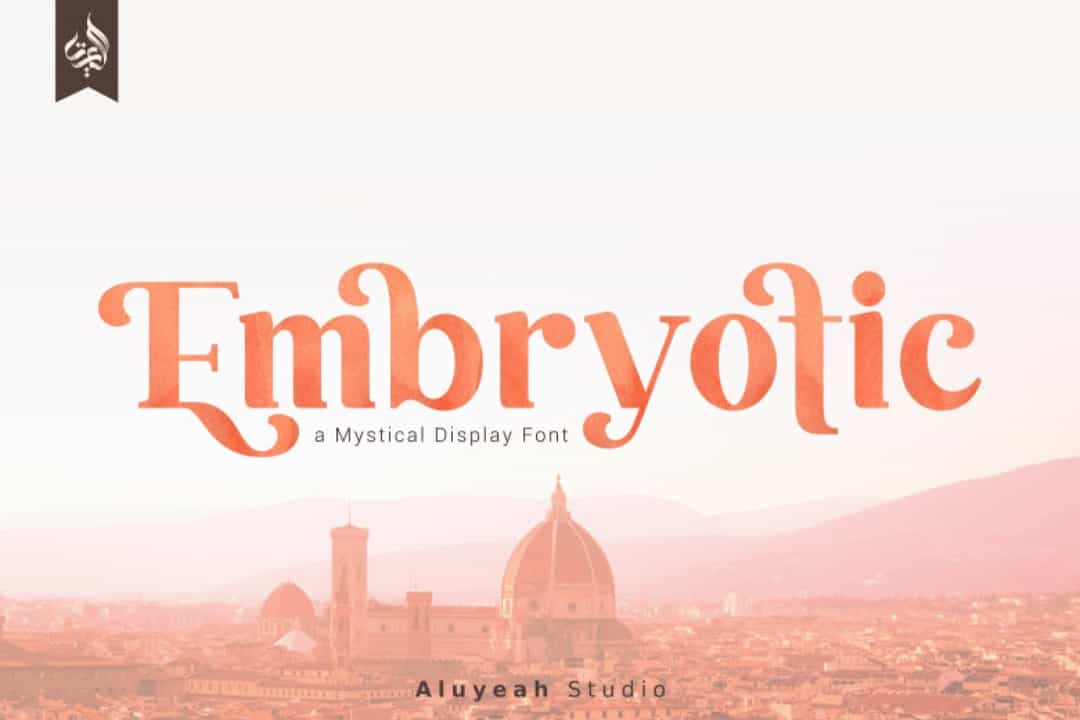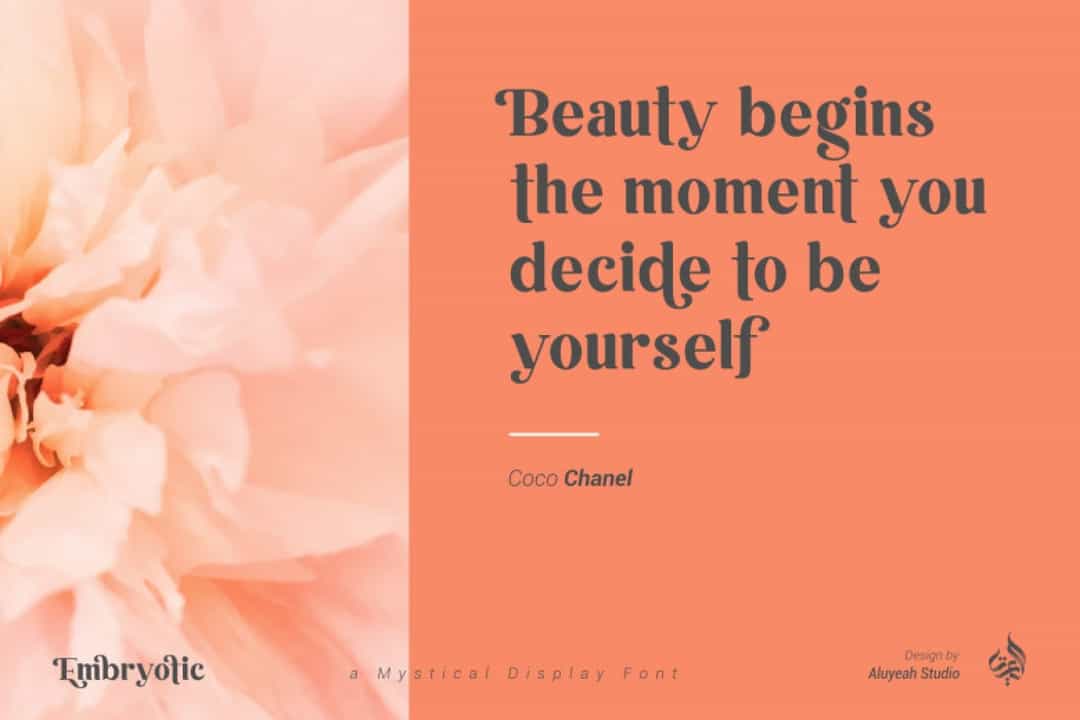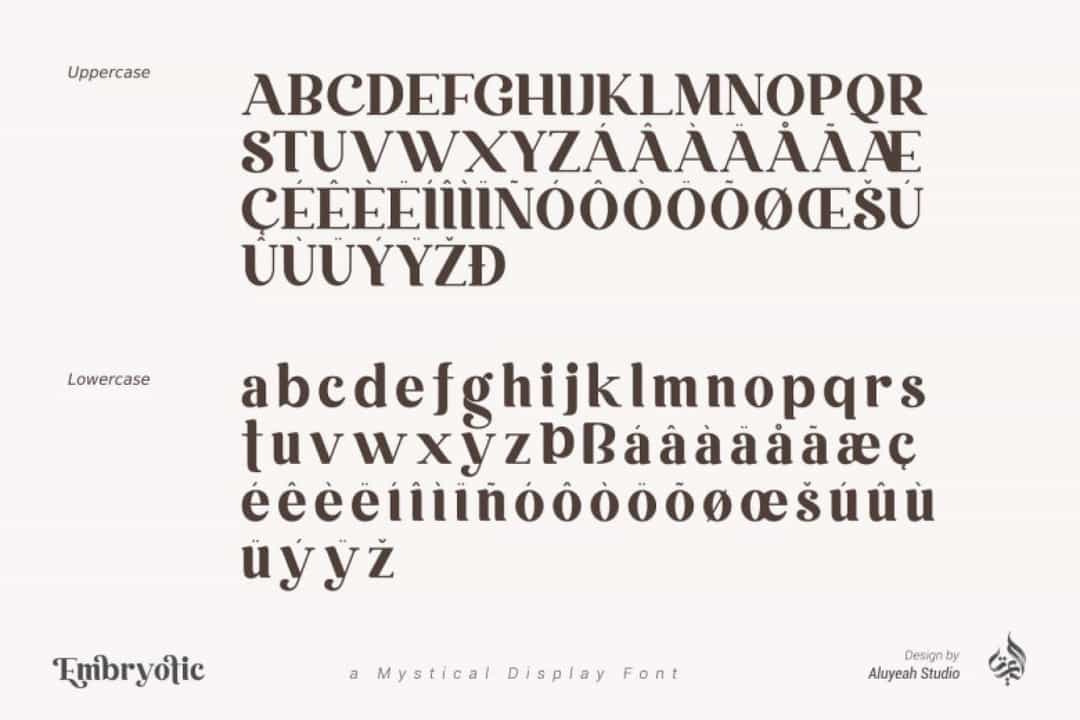
Embryotic is an elegant serif display font which was drawn by hand and, when worn on a T-shirt, makes one look like they are wearing fashion labels. All in all, the design of the furniture is exquisite, which adds a touch of style and formality to any item of furniture to give it a classic look.